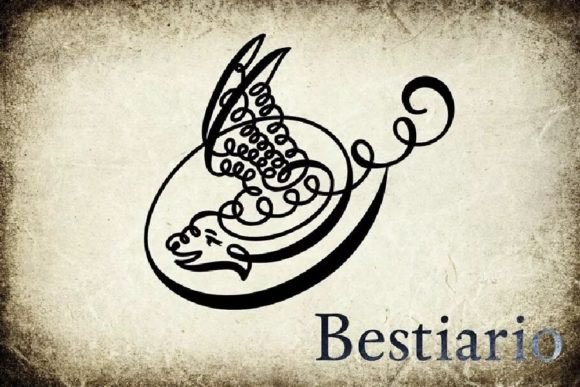
Introducing Bestiario Font - the perfect collection of fonts for art websites. Created by Intellecta Design, this dingbats font family is a true masterpiece that will captivate your imagination and elevate your designs to new heights.
But what makes Bestiario Font truly special? It all starts with the legendary calligrapher John Seddon. A famous English writing master of the 17th century, Seddon was a true master of his craft. His portrait, engraved by John Sturt, is a testament to his talent and expertise. His copy-books, such as 'The Ingenious youth's companion' and 'The pen-man's paradise', showcased his exceptional skills.
Inspired by Seddon's penmanship, Iza W embarked on a journey to revive and honor Seddon's artworks. The result? Bestiario Font, a collection that captures the essence of Seddon's animal and human kingdom-inspired penmanship forms. Each character is meticulously crafted, reflecting the historical accuracy and ornate beauty of the baroque and renaissance eras.
Bestiario Font offers a diverse range of options to meet your design needs. From the highly ornamented animal kingdom-inspired capitals to the intricately designed alphabets of the Seddon Penmans Paradise Capitals typeface, this collection has it all. The attention to detail is evident in every stroke, making it a fantastic choice for creating elaborate and visually stunning layouts.
But that's not all - the Bestiario Font collection also includes "SeddonsFleurons," a delightful addition that completes the set. These decorative flourishes add an extra touch of elegance and sophistication to your designs, allowing you to create truly unique and eye-catching compositions.
When you choose Bestiario Font, you're not just getting a font collection - you're gaining access to a rich heritage of calligraphy. Each character carries the legacy of John Seddon, the renowned writing master, and his dedication to the art of penmanship. With Bestiario Font, you have the power to bring history to life and infuse your designs with an undeniable charm.